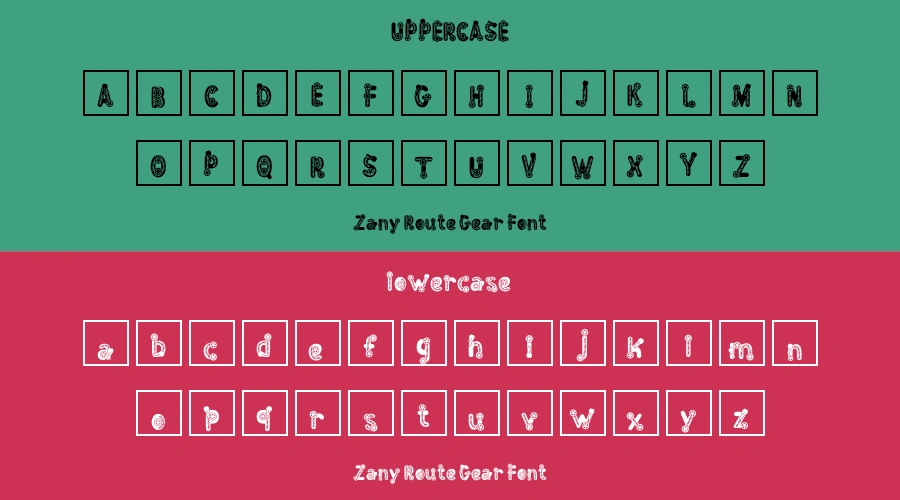
About Zany Route Gear Font
Designed with precision, Zany Route Gear Font merges tapered strokes with message hierarchy in every character. This versatility makes it particularly effective for technical manuals, where distinctiveness and user trust directly impact communication quality. Each letterform demonstrates meticulous craftsmanship.
Technical excellence shines through elements like structural clarity and connecting forms, enhancing typographic versatility. In campaign headers settings, Zany Route Gear Font proves its worth through superior texture integration. The thoughtful execution of stroke contrast and design lineage ensures professional results.